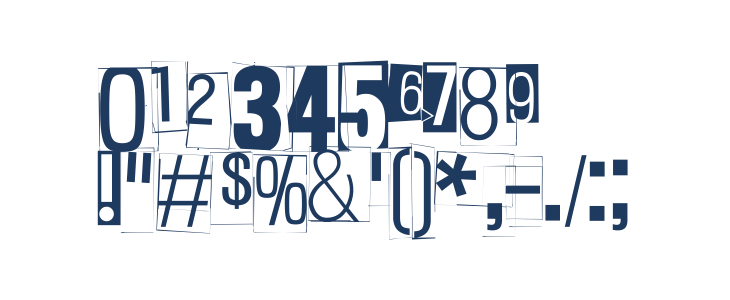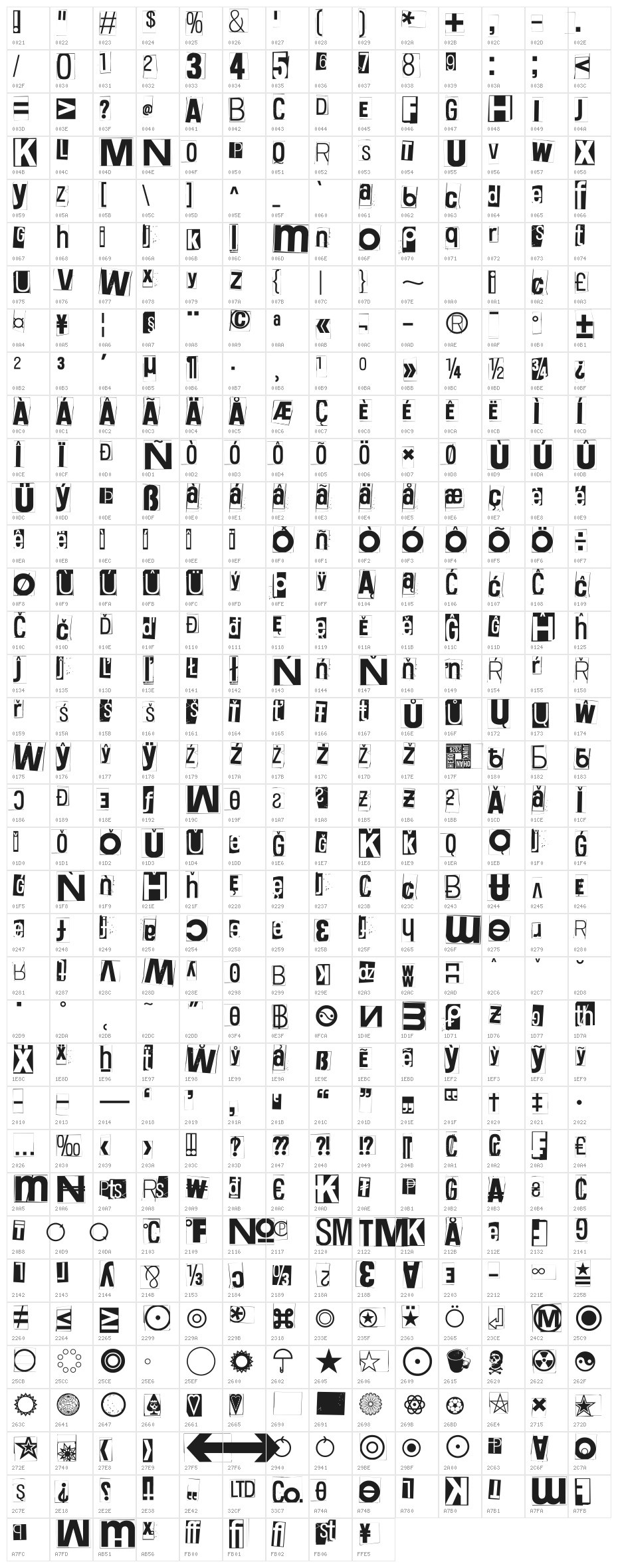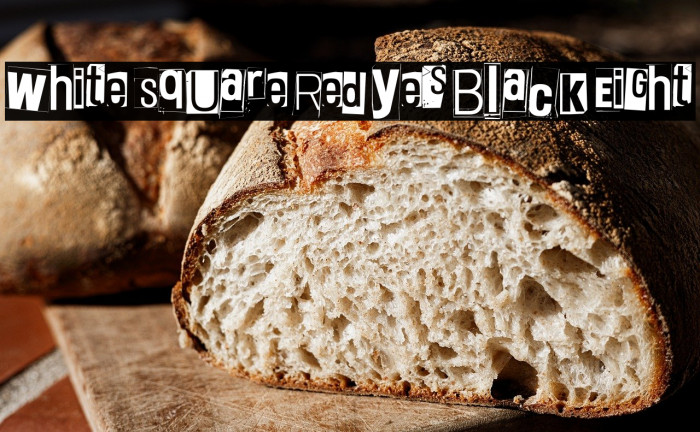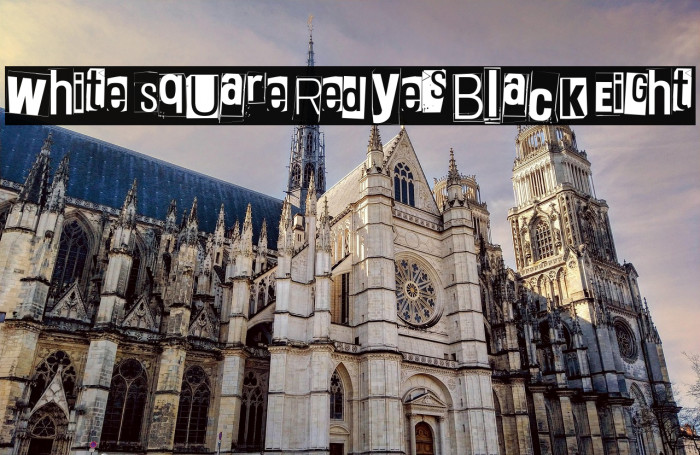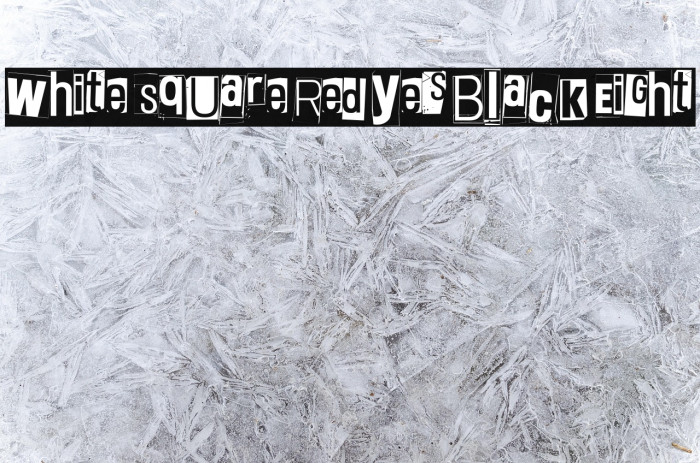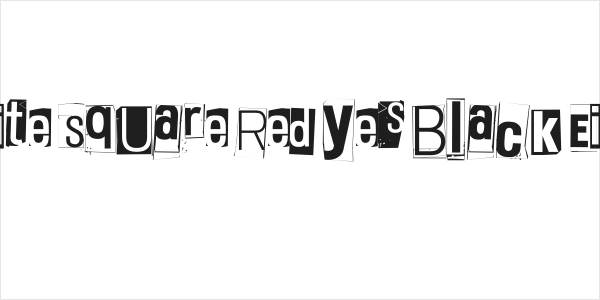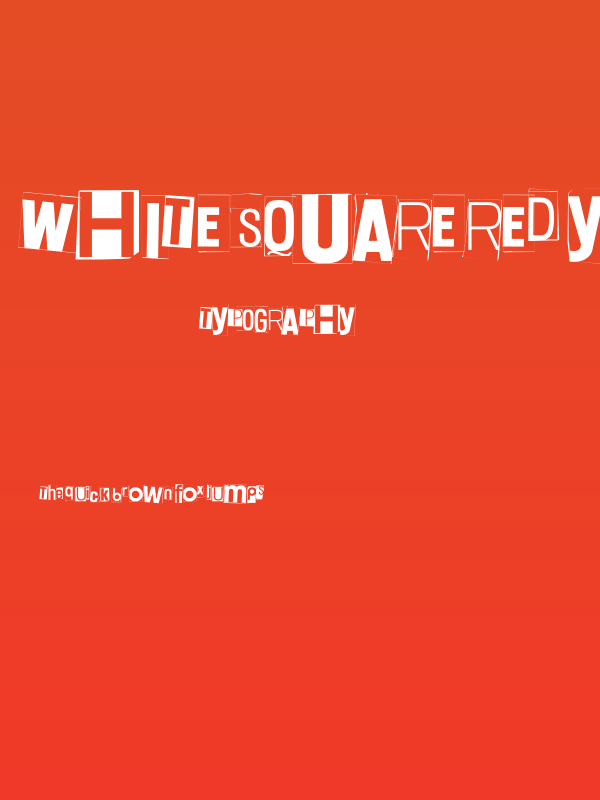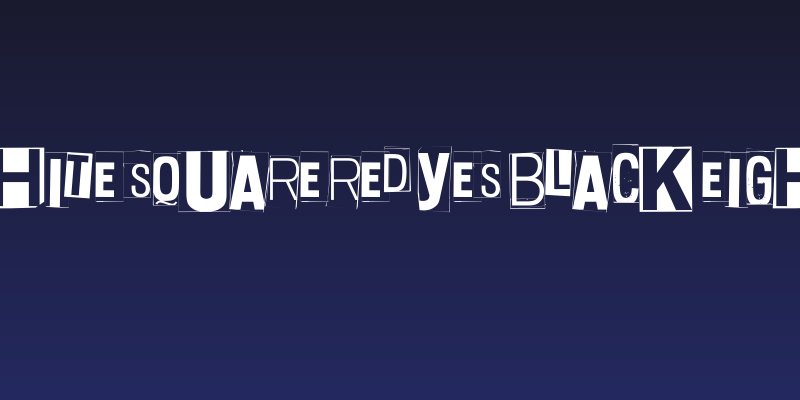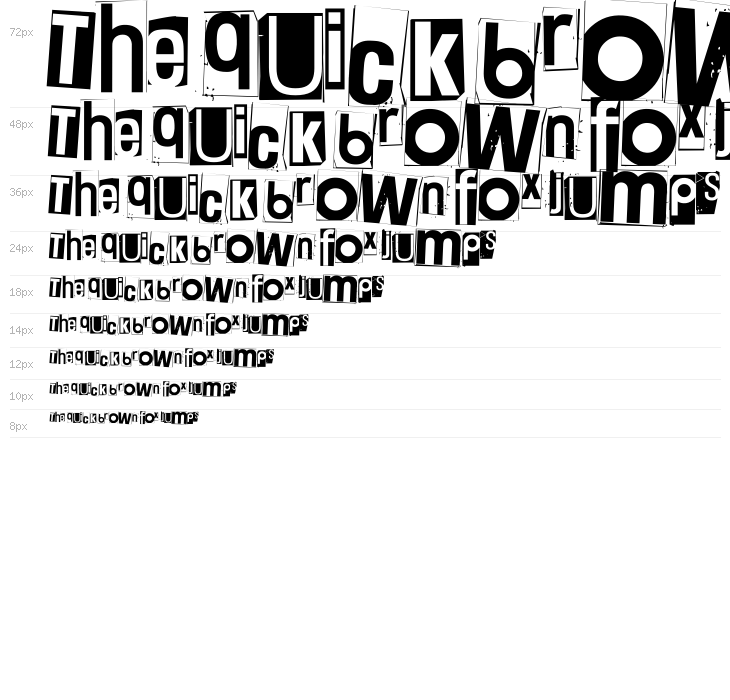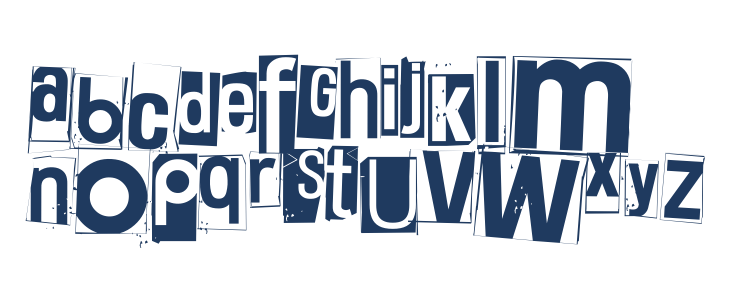
White Square Red Yes Black Eight Font
White Square Red Yes Black Eight Description
A collage-style font with letters cut from various sources, creating a ransom note effect.